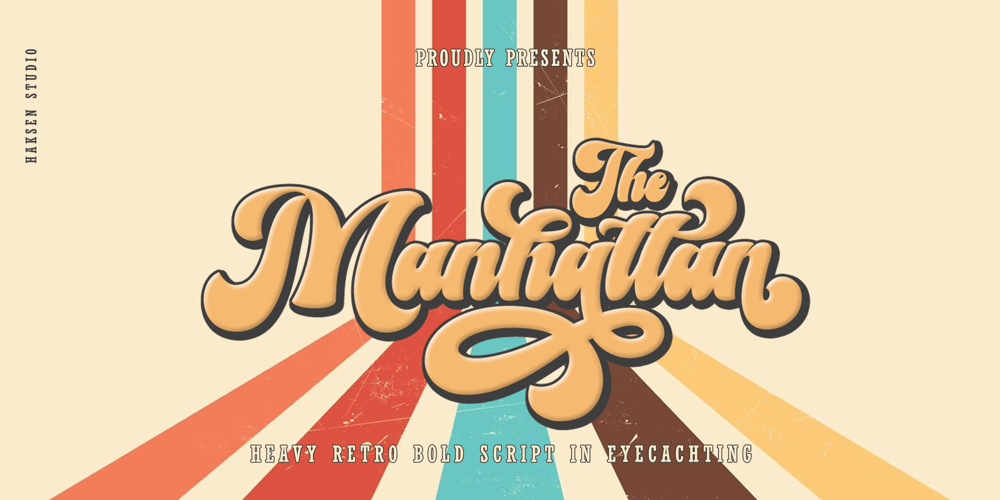
Manhattan
Manhattan font
Manhattan Font Family was designed by Sarwo Edhi Prayitno and published by Haksen. Manhattan contains 1 styles and family package options. “Manhattan” The new Bold Script Retro handmade style font. Very suitable for advertisement products, branding materials, business designs brand, quotes, posters and more! This font are perfect for all brand.This font is very flexible to use with several software such as Adobe Photoshop, Illustrator, CorelDraw and others, also supports the Cricut Design Space, Silhouette Studio, Canva, Procreate applications using the Character Map menu to get the access alternates of special letters, for the example “h” “a” “n” also ligatures of “tt” on “Manhattan” Happy Designing,